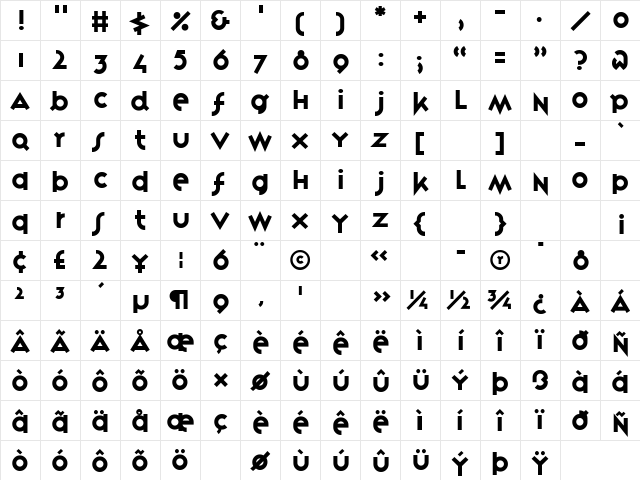
VariexRegular Regular
VariexRegular Family
Design Context for VariexRegular
VariexRegular is a composed and adaptable typeface that performs quietly and consistently across a wide range of design contexts.